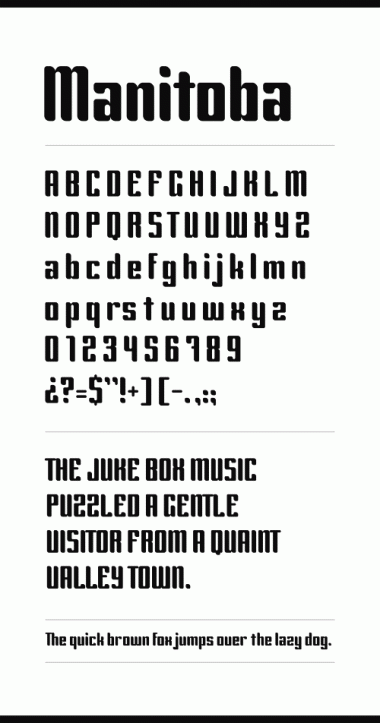
Manitoba
Axel Leyer
Sans Serif
Really nice fontstruction!
Very nice work. Great continuity throughout the whole set.
The lowercase is stunning.
Definetely a classic.
I love classics ...
Be-au-ti-ful